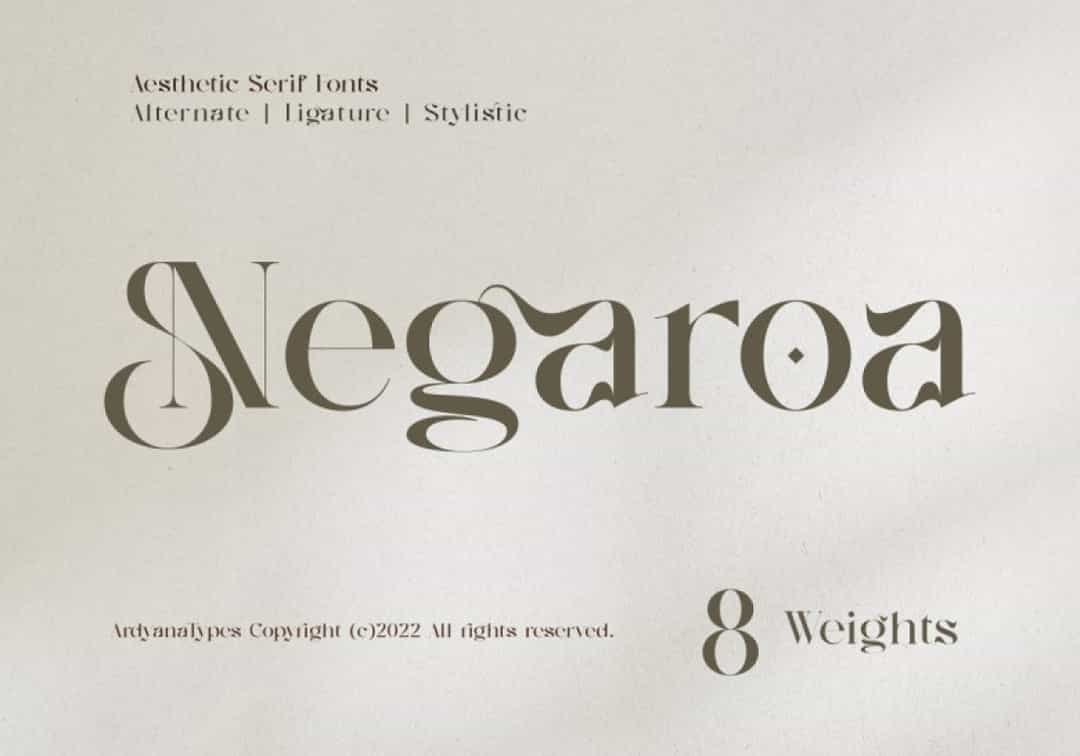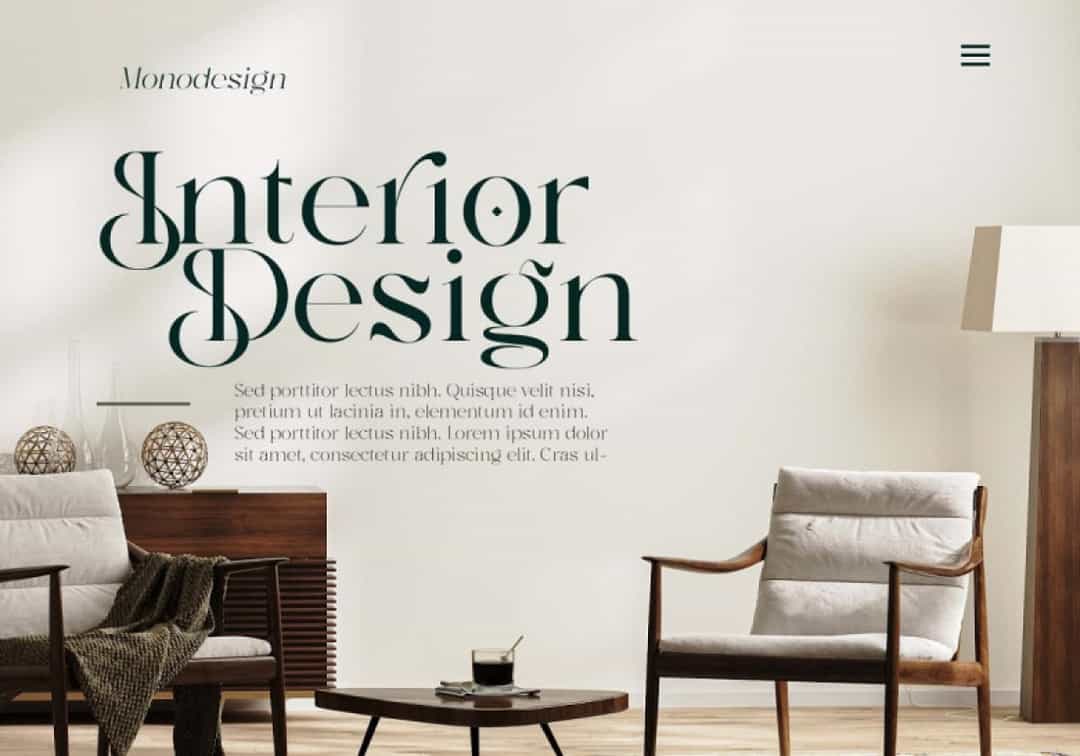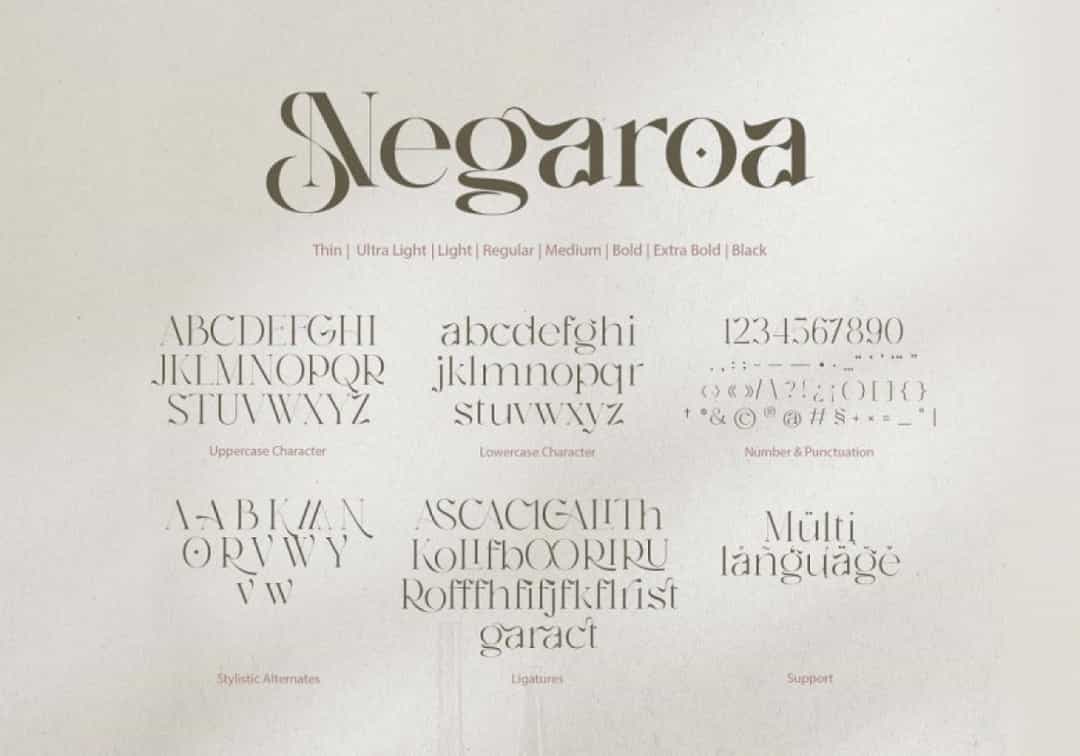
Negaroa features an elegant style and it’s contemporary serif type tagline is both modern and sophisticated. Available in eight thickness levels ranging from black to thin, Negaroa offers eight thickness levels to meet your requirements and comes equipped with professional features to help create a sophisticated and appealing image for commercial projects or businesses.